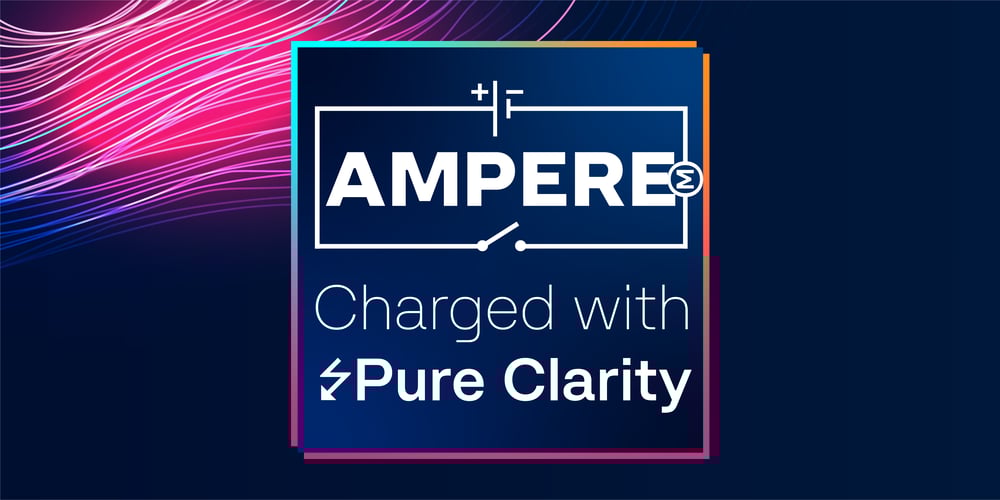
Ampere Variable
Ampere Variable font
Ampere Variable Font Family was designed by Ben Hartley, Solenn Bordeau and published by Black Foundry. Ampere Variable contains 1 styles and family package options. With sleek geometry and an uncompromising clarity, Ampere stands out with a refined, grid-like precision that speaks to its modern design ethos. At small scales, it remains legible and crisp, while at larger sizes it commands attention, making it ideal for both immersive reading and powerful headings.Ampere’s unique character lies in its subtle yet striking features. Inside corners are softened with squared ink traps, a choice that tempers its sharp angles for a smooth, sophisticated finish without compromising on structure. Adding a spark to its utility, Ampere also includes a set of special “electric” characters inspired by its namesake, infusing a touch of energy into any project.Available in six finely-tuned weights (ExtraLight, Light, Regular, SemiBold, Bold, and Black), Ampere provides designers with flexibility across a spectrum of visual intensities. This flexibility is complemented by an imaginative spirit: Ampere offers a playful edge with its thoughtfully crafted electrical symbols. The font’s ligatures also bring a sense of harmony, allowing for dynamic combinations that enhance readability and elevate the visual appeal.